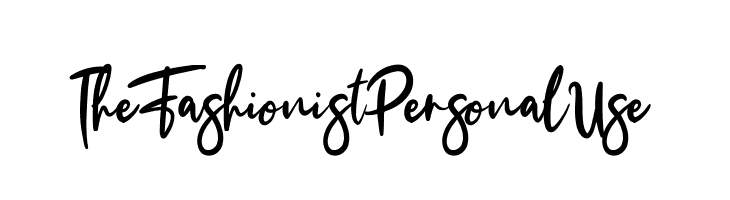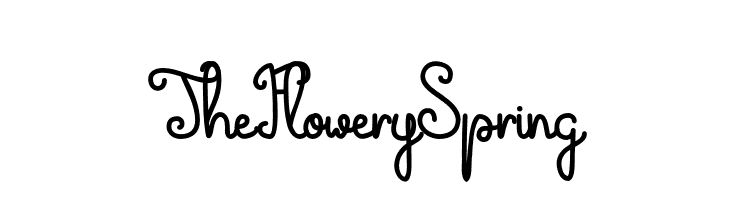
A modern, handwritten script font with elegant, flowing letters.
A bold, angular font with a futuristic, geometric style.
A dynamic, brush-style handwritten font with an energetic and raw appearance.
A playful, cursive-style font with interconnected, flowing letters.
A bold, rounded sans-serif font with a modern and approachable style.
A rugged, distressed font with a vintage, hand-crafted appearance.
A bold, decorative script with intricate swirls and loops.